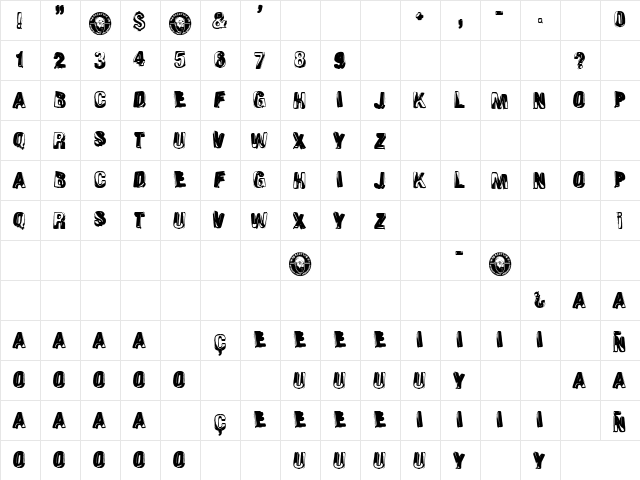
Schizoid Personality Regular
| Designer | Woodcutter Manero |
Design Context for Schizoid Personality Typeface
Schizoid Personality is a composed and adaptable typeface that performs quietly and consistently across a wide range of design contexts.